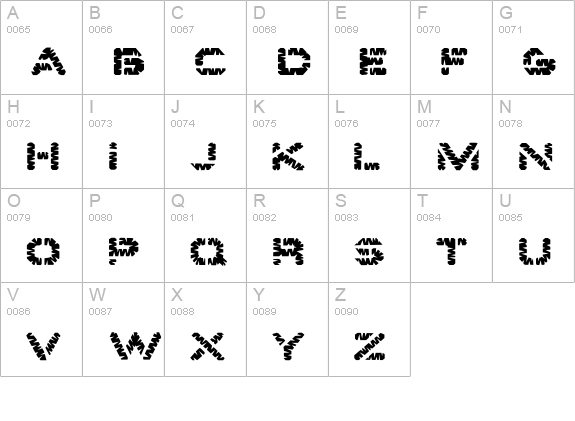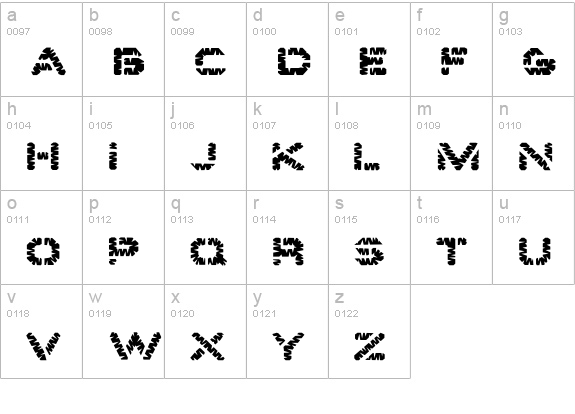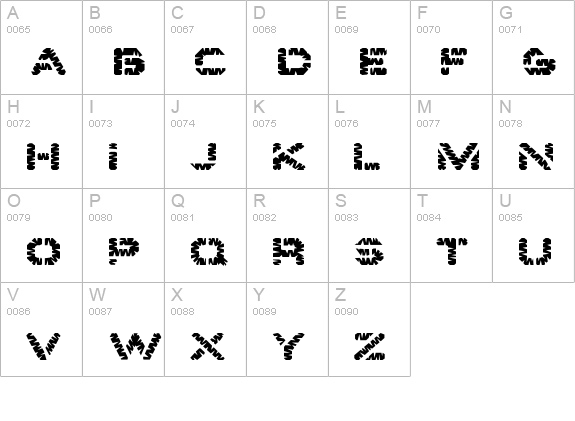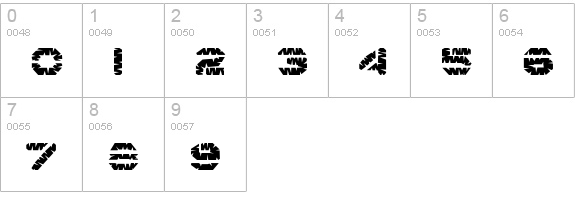
Earthwater font is a breathtaking typeface that beautifully embodies the essence of nature and the fluidity of water. With its graceful curves and intricate details, this font is perfect for adding a touch of elegance and sophistication to any design project. The Earthwater font is not only stunning, but it is also incredibly versatile. It can be used for a wide range of applications, including logos, branding, invitations, packaging, and much more. Its unique design allows it to stand out from the crowd and leave a lasting impression on viewers. One of the best things about the Earthwater font is that it is free. Yes, you read that correctly! This exquisite font is freely available to download at FontsMarket.com. Now you can enhance your designs without breaking the bank. Downloading the Earthwater font is incredibly easy. Simply visit FontsMarket.com, search for Earthwater font, and click the download button. Within seconds, you will have access to this magnificent font and be ready to elevate your design projects to new heights. So why wait? Discover the beauty of Earthwater font today and let your creativity flow freely. Whether you're a professional designer or someone who simply appreciates the art of typography, this font is sure to captivate and inspire. Don't miss out on the opportunity to have this stunning font at your fingertips. Download the Earthwater font now, for free, at FontsMarket.com.